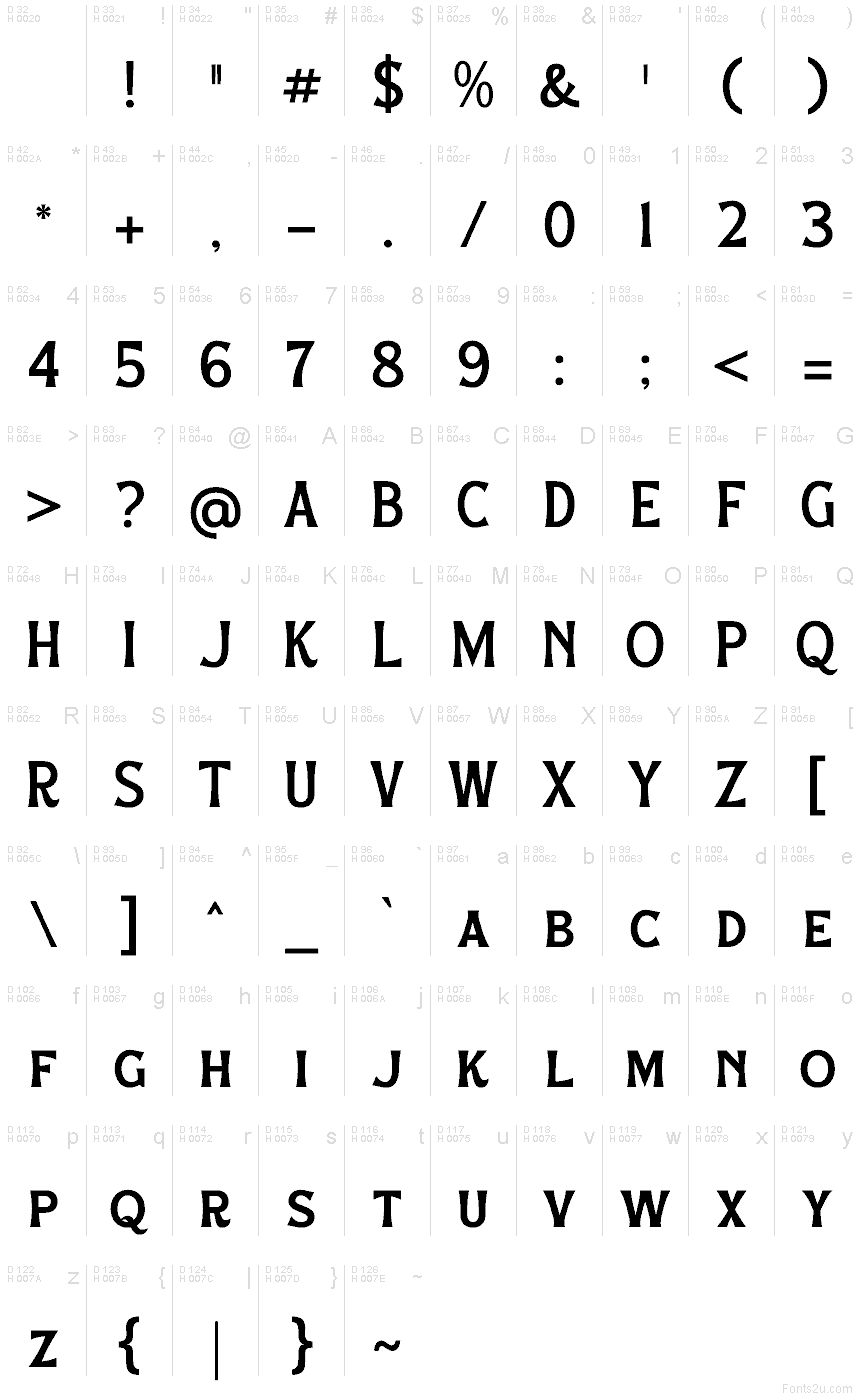
Barqen
Barqen font by Storytype Studio is a unique display typeface with retro style influences. The geometric and decorative elements of this modern font draw attention, giving it a strong presence. Numerous characteristics give it the right to appear within headlines of different sized texts whether printed or online.
Use Barqen in magazine covers, books, packaging items like tea boxes, logos, posters and flyers. It also fits well in invitation designs as well as social media posts, slides templates and websites.